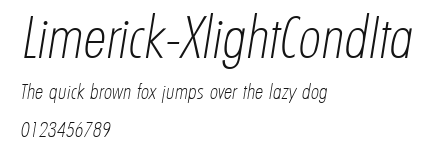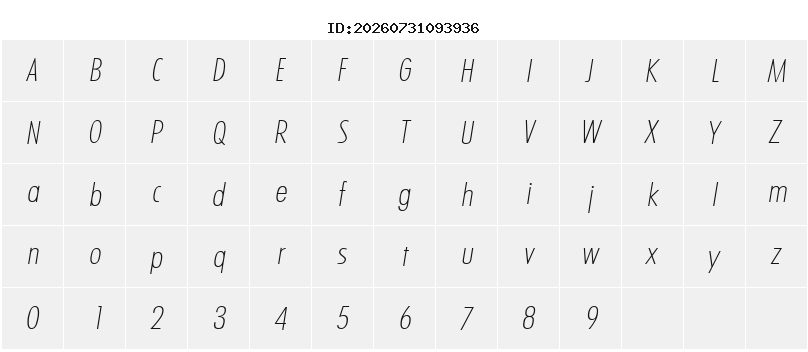
• Font Name: Limerick-XlightCondIta
• Full Font Name: Limerick-XlightCondIta
• PostScript Name: Limerick-XlightCondIta
• Character Count: 245
About Limerick-XlightCondIta.ttf
Limerick-XlightCondIta.ttf is a modern, elegant sans-serif font designed for ultimate readability and visual harmony. Perfect for branding, headlines, web design, and print materials.